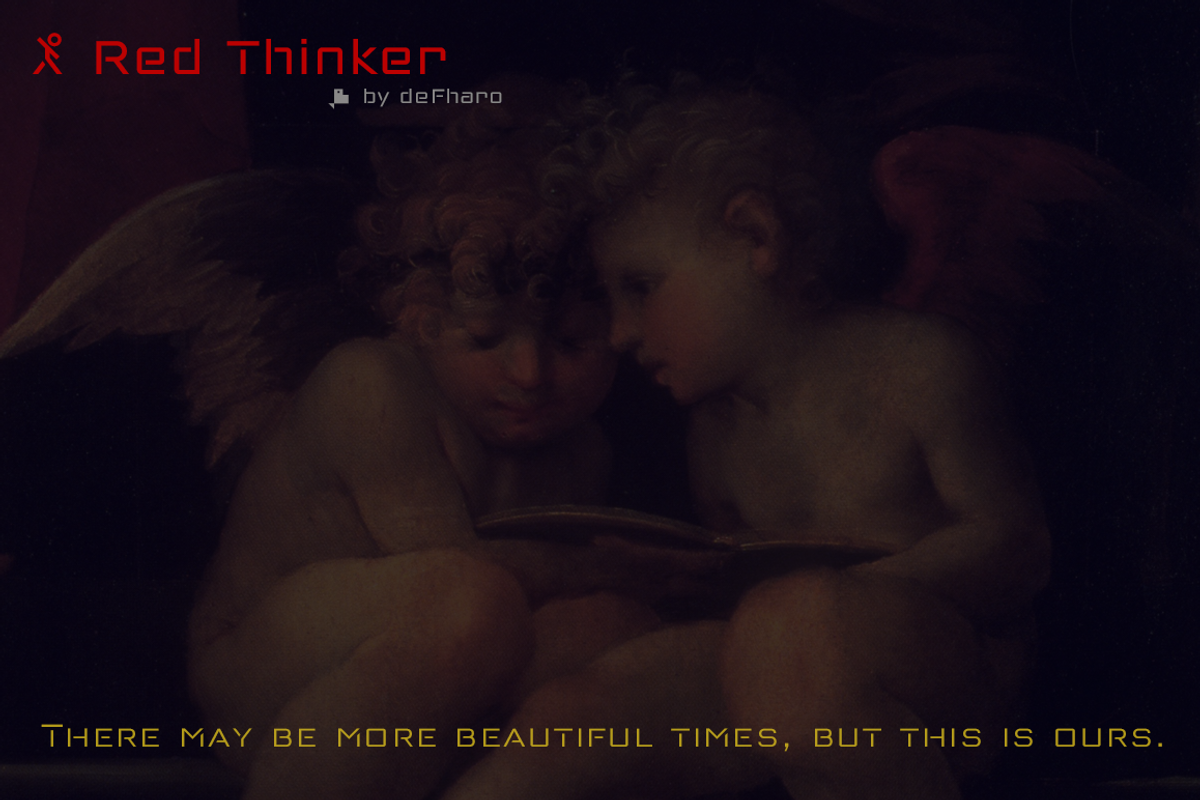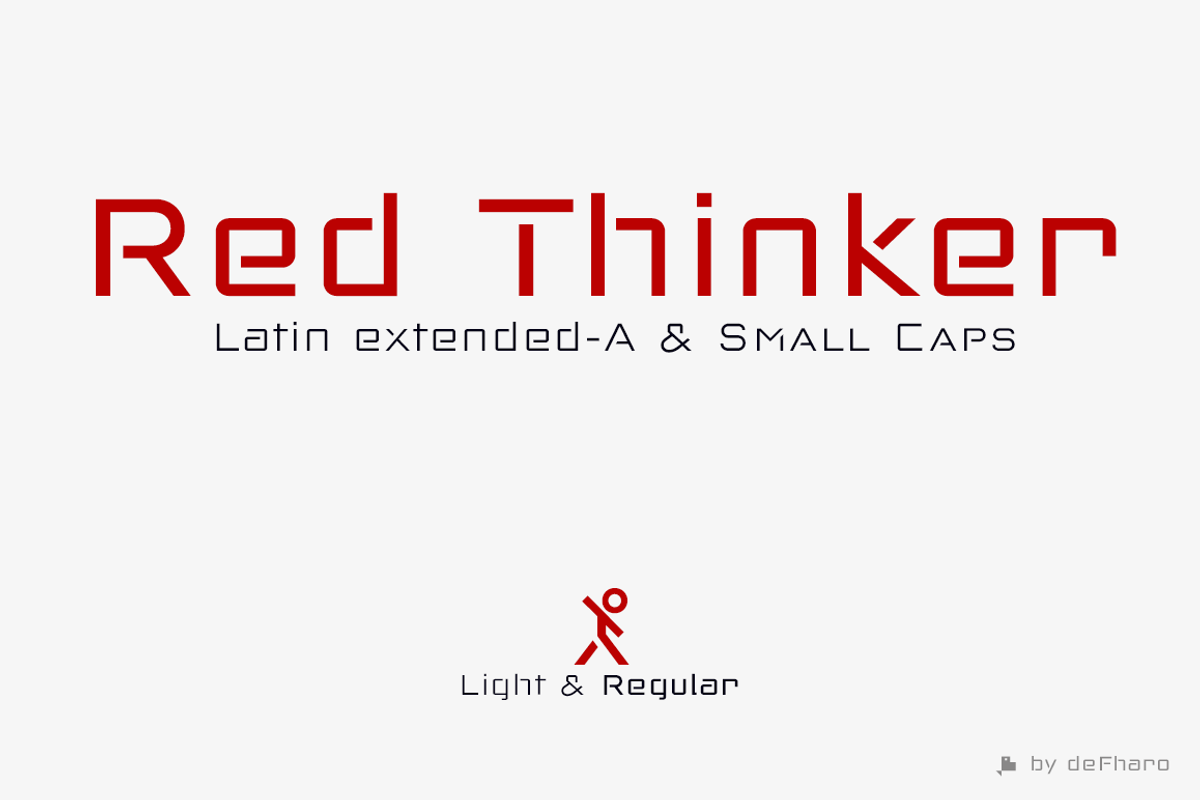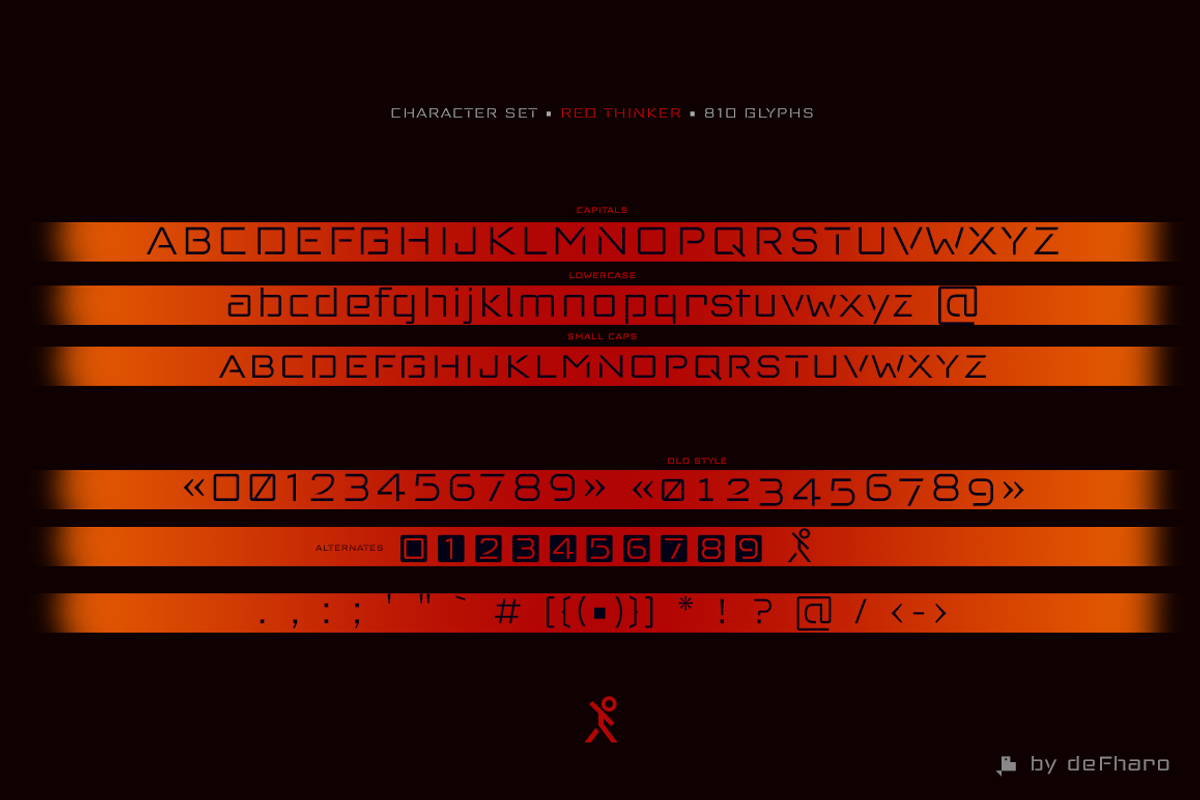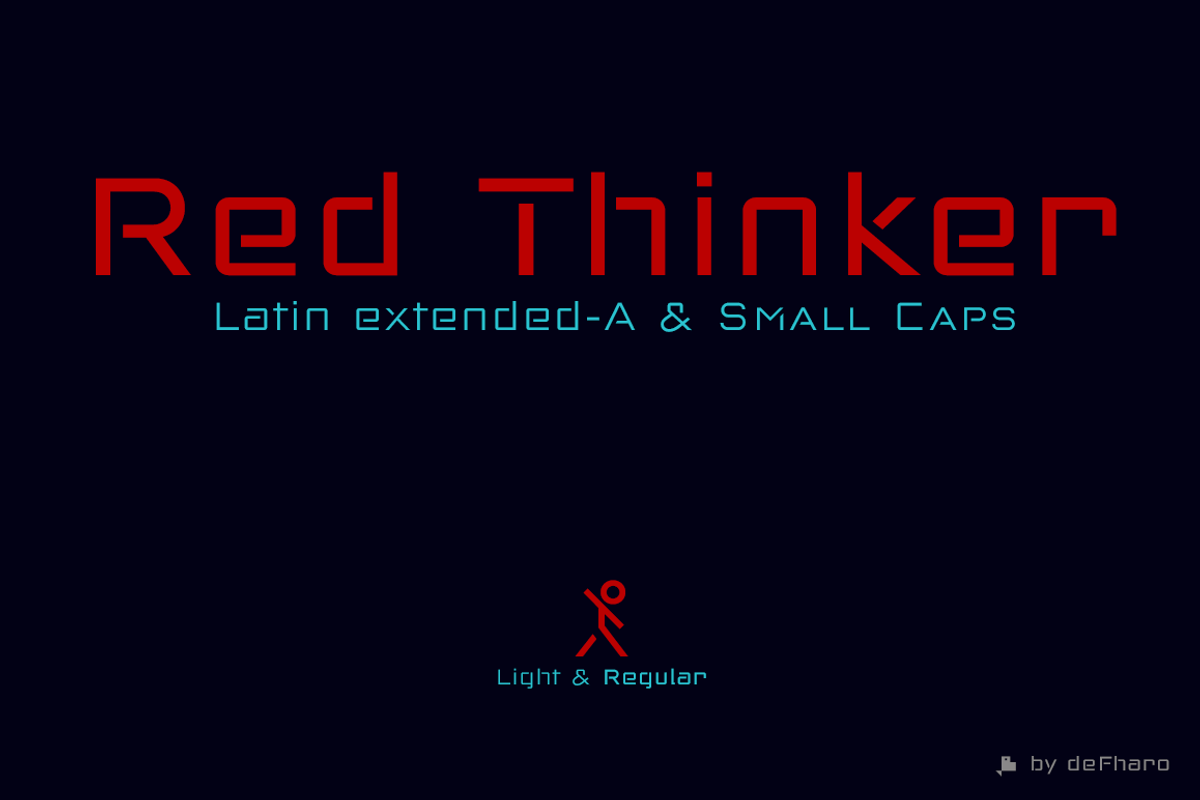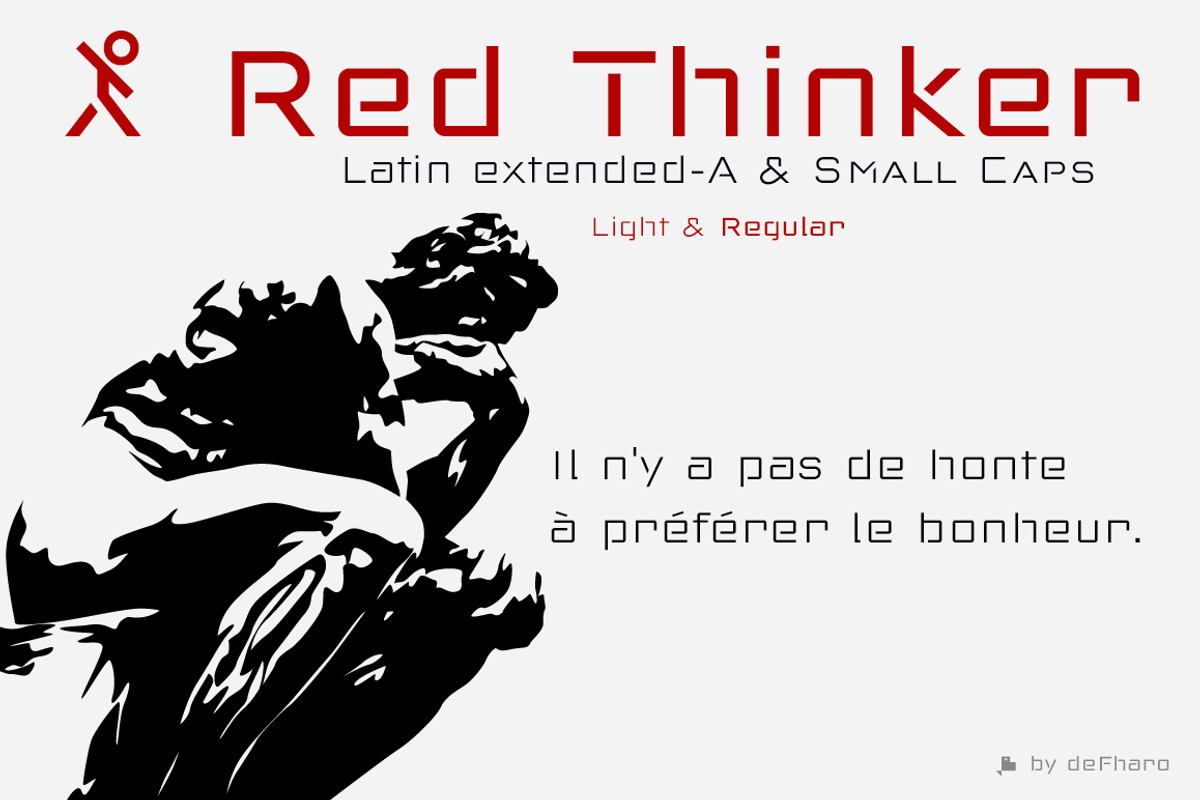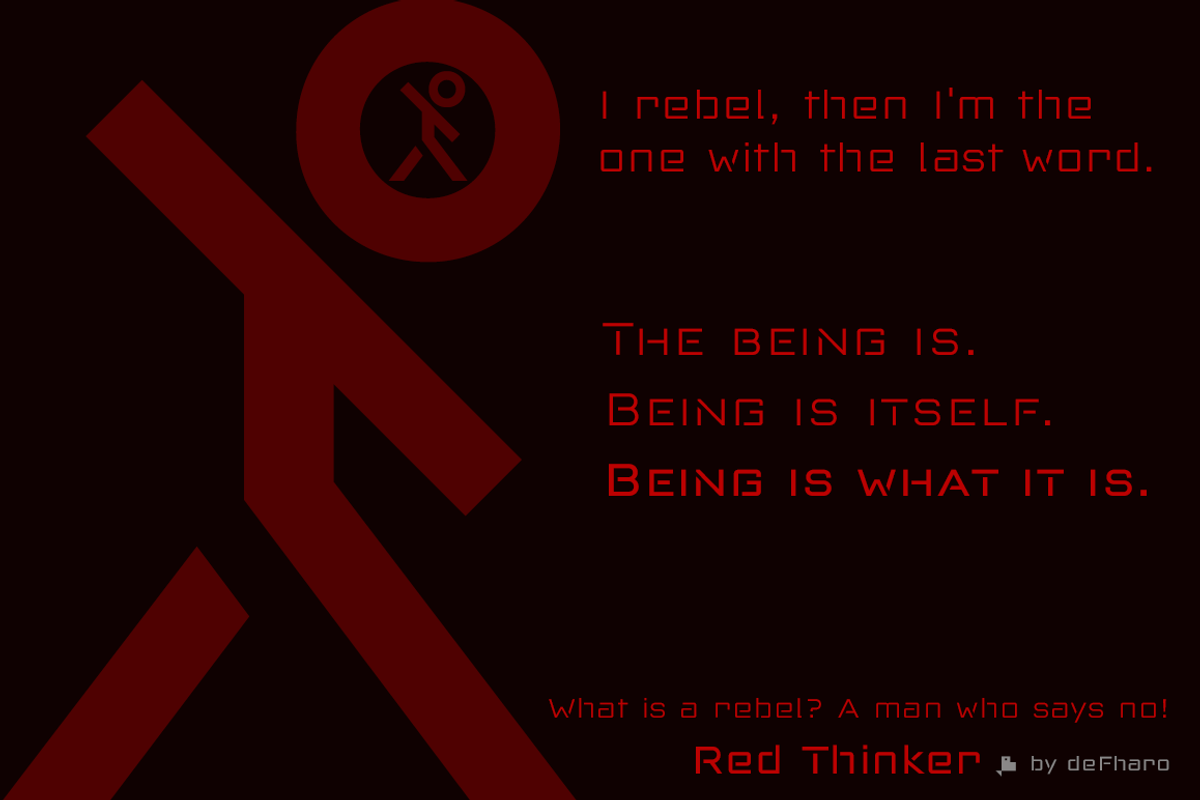
Red Thinker -2 techno fonts-
Red Thinker is a sans serif typeface that includes Small Caps, is of square proportion and fuses soft curves in the outer vertices with straight lines inside the characters, a semi-stencil design that gives it a technological aspect and future fiction.
Red Thinker is the heir by right of the geometrical fonts of the early twentieth century inspired by the Bauhaus school and is specially designed for use in any size for both screen and printing.
Red Thinker. Light & Regular (2 fonts)
Red Thinker includes the symbol of Bitcoin and currency symbols.
OpenType Features: Historical Forms, Capital Spacing, Localized Forms, Bitcoin, Extended Fractions, Contextual Alternates, Oldstyle Figures, Alternate Annotation Forms, All Alternates, Ordinals, Additional languages, Kerning, Numerators, Inferiors, Superscript, Fractions, Small Capitals From Capitals, Standard Ligatures, Subscript, Small Capitals, Discretionary Ligatures, Superior letters, Denominators, Superiors, Slashed Zero, Scientific Inferiors.